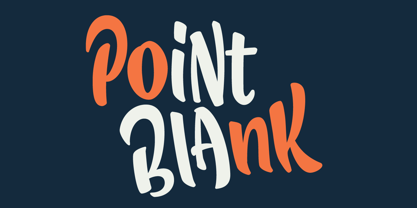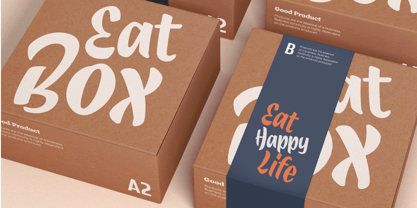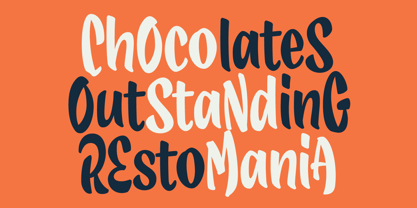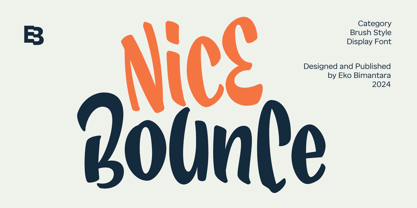
Nice Bounce
by Eko Bimantara
The Nice Bounce Font Family was designed by Eko Bimantara and published by Eko Bimantara. Nice Bounce contains 1 styles. More about this family
Nice Bounce is a bold brush display font featuring clean, bouncy strokes that allow for playful mixing of lowercase and uppercase characters. Its expressive and dynamic style is perfect for creating bold, fun, and energetic designs, especially for food-related branding, product packaging, and titles. Ideal for large displays, headers, and various creative layouts, Nice Bounce brings a sense of movement and personality to websites, brand identities, and broad graphic design projects, making it a versatile choice for standout visuals.